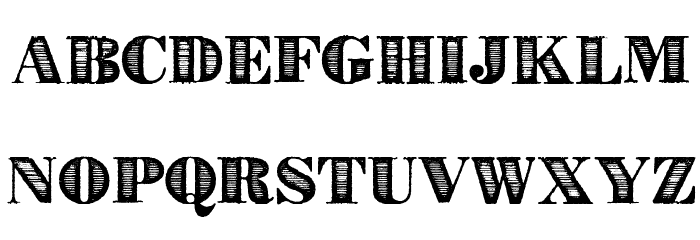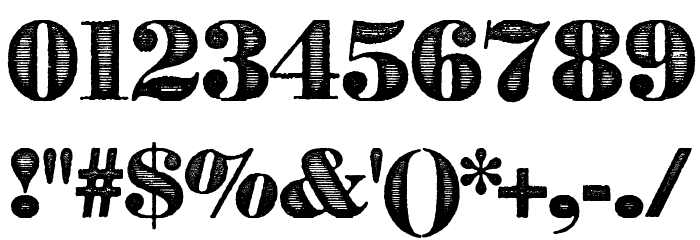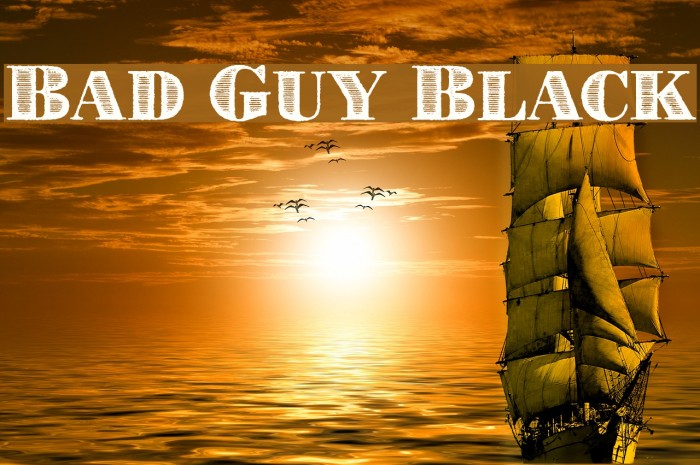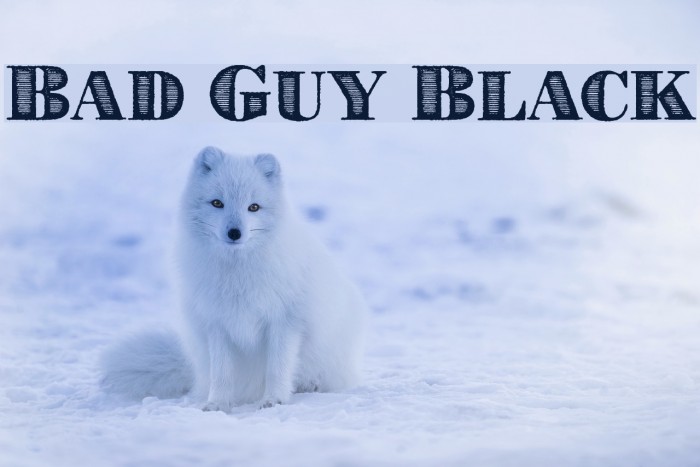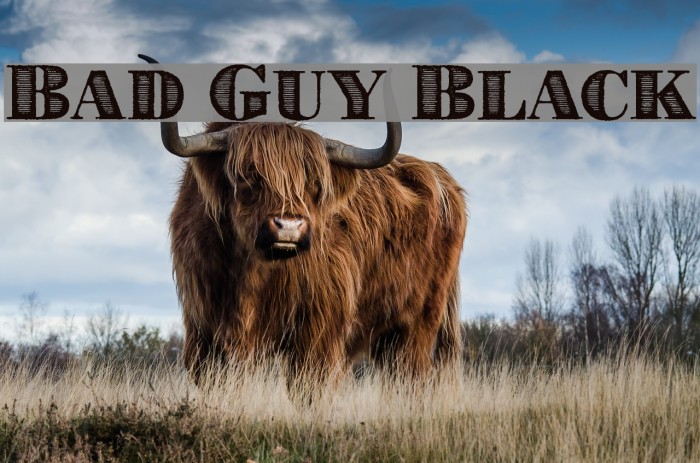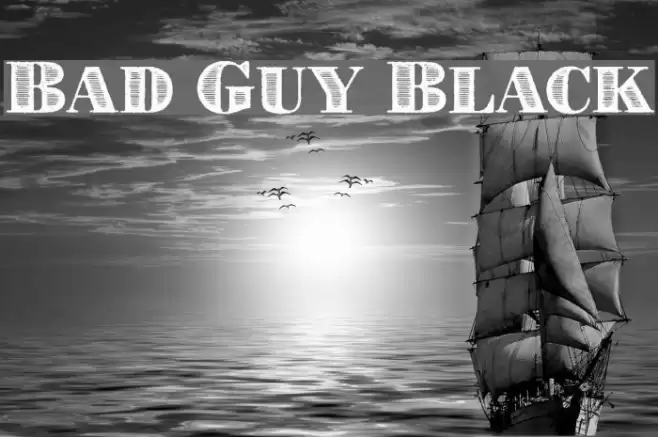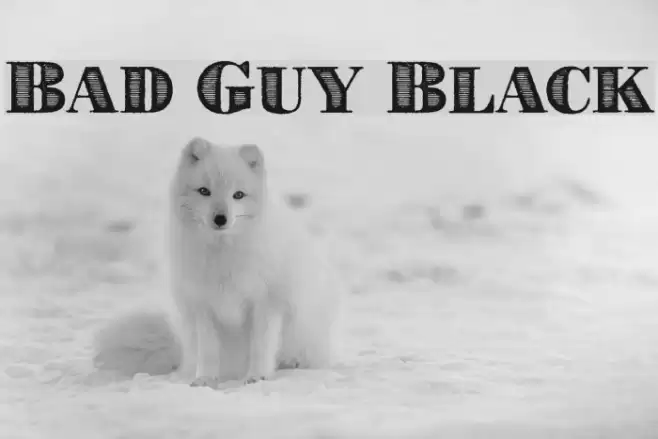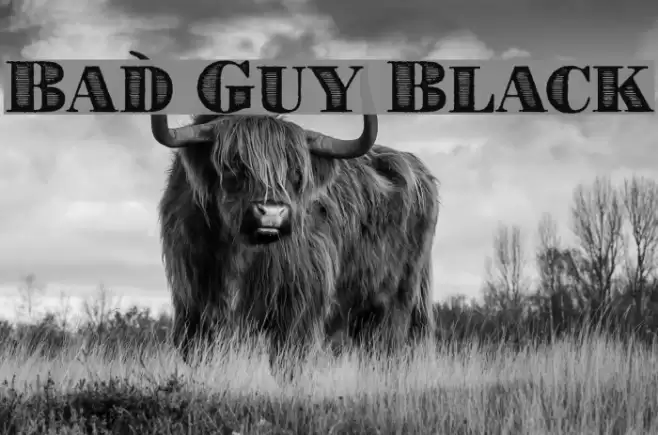
Bad Guy Black Font
This font features a bold and striking design with a distinct vintage flair. Each character is crafted with a unique striped pattern that adds depth and texture, reminiscent of old-school circus or carnival posters. The uppercase letters are robust and commanding, while the lowercase letters maintain the same boldness with slightly more rounded edges. Numbers and special characters follow the same stylistic cues, ensuring consistency across all glyphs. The overall appearance is both decorative and impactful, making it ideal for projects that require a strong visual presence.
A bold, vintage-style font with striped patterns and a decorative flair.
- Proposed Projects: Ideal for posters, logos, branding, and any design requiring a vintage or retro aesthetic.
- Overall Style: Vintage